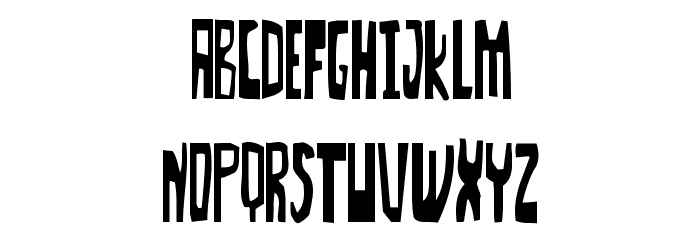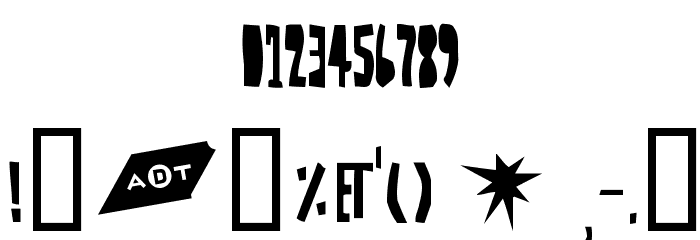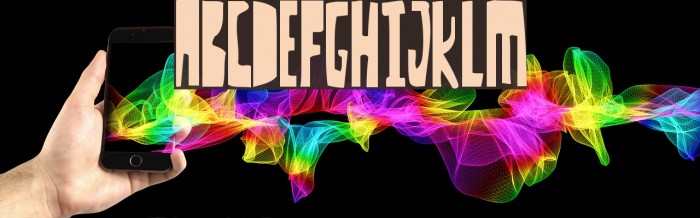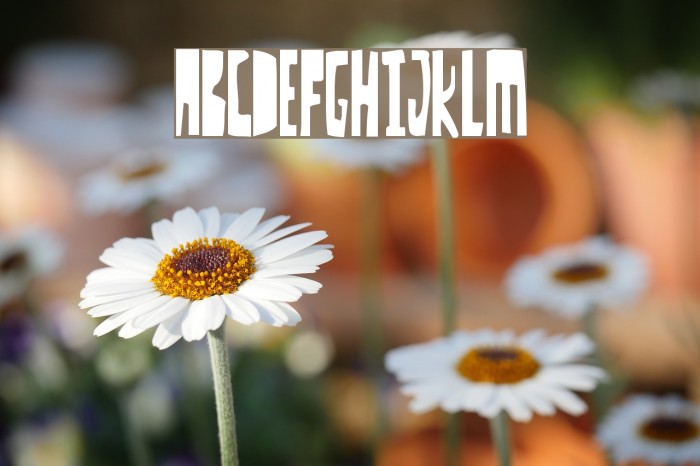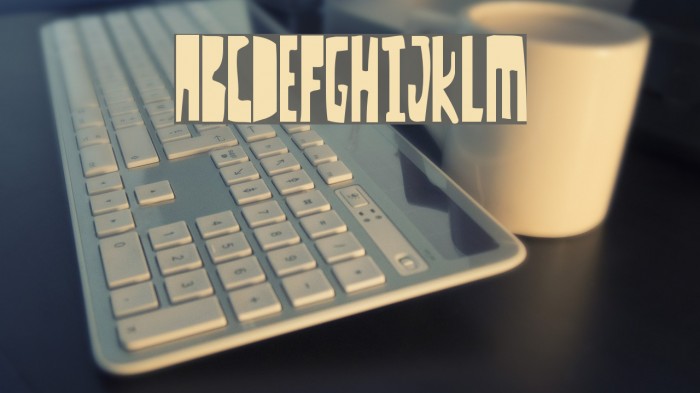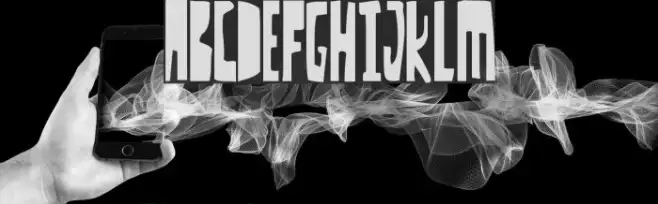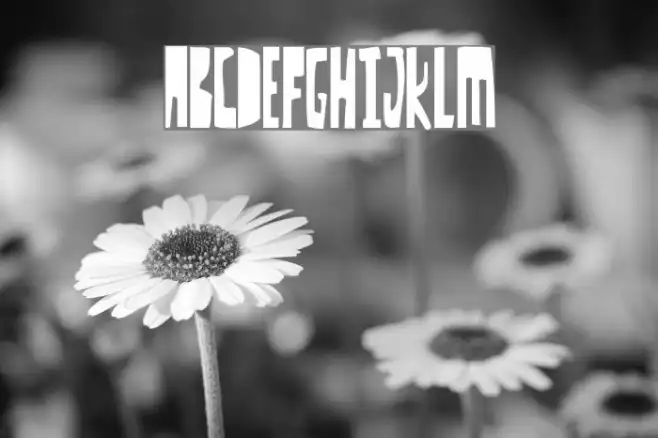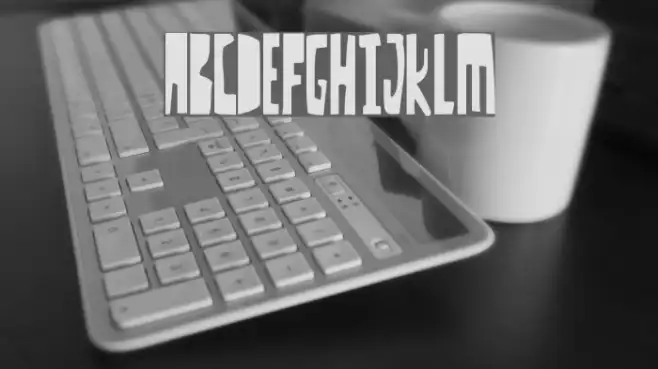
LaPierre Font
This font features a bold and dynamic style with a distinctly playful and irregular character shape. Each letter has a unique, slightly distorted form that gives it a whimsical and artistic appearance. The uppercase and lowercase letters maintain a consistent height, contributing to a cohesive look despite the varied widths and angles of individual characters. The numbers and special characters follow the same design principles, adding to the font's overall quirky and creative vibe. This font is perfect for projects that require a touch of fun and originality.
A bold, playful font with irregular, artistic character shapes.
- Proposed Projects: Ideal for children's book covers, playful branding, artistic posters, and creative event invitations.